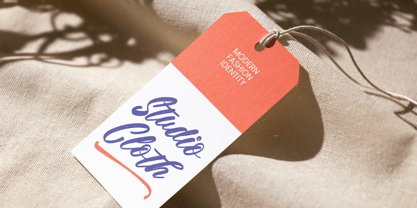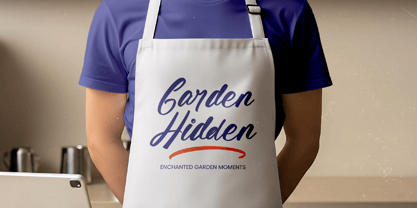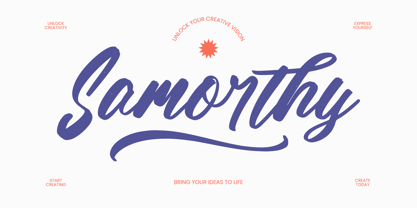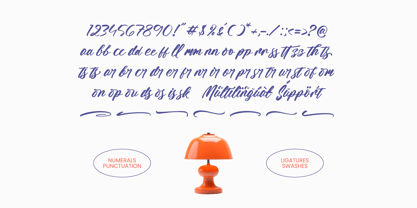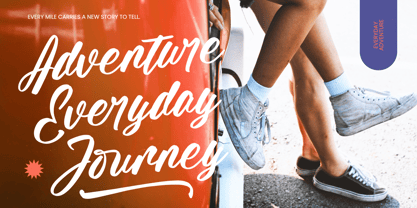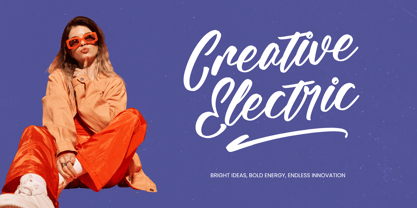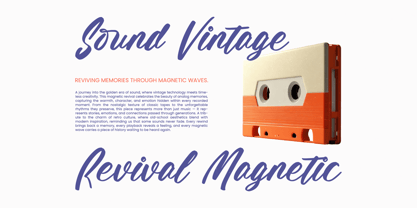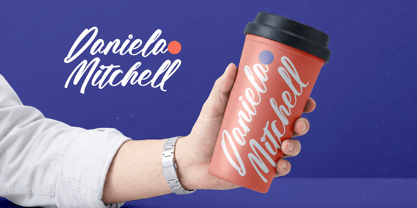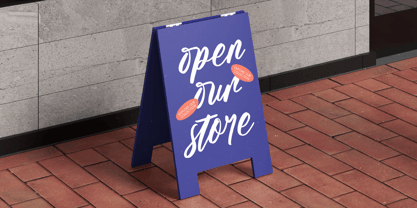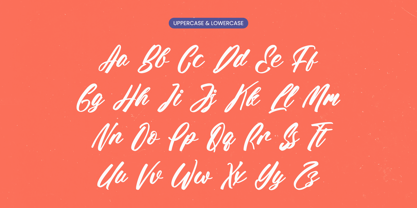
Samorthy
The Samorthy Font Family was designed by Heru Utama Putra and published by Stylishtype Studio. Samorthy contains 2 styles and family package options. More about this family
Elevate your design projects with the striking personality of Samorthy - Handwritten Brush Font, a typeface that embodies the energy of bold brush strokes and handcrafted artistry. This high-impact script is meticulously designed to provide an authentic aesthetic that commands attention while maintaining a sophisticated flow. Whether you are aiming for a rugged urban look or a refined artisanal vibe, its dynamic letterforms ensure your message is delivered with unmistakable confidence and style.